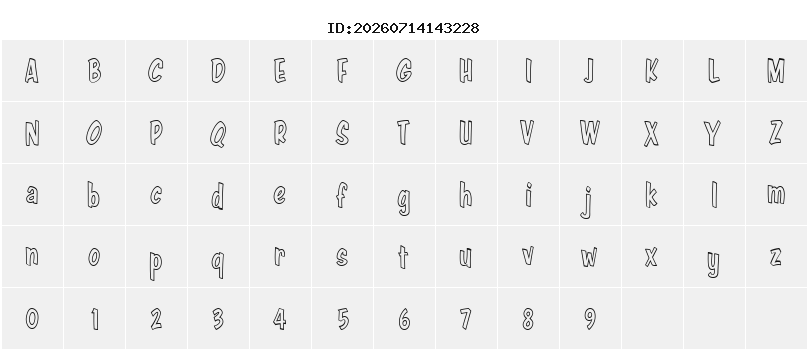
Java Jive Outline Condensed Preview
• Font Name: Java Jive Outline Condensed
• Designer: Ronna Penner
• Manufacturer: TYPADELIC FONTS
About Java Jive Outline Condensed.ttf
Java Jive Outline Condensed.ttf is a modern, elegant sans-serif font designed for ultimate readability and visual harmony. Perfect for branding, headlines, web design, and print materials.